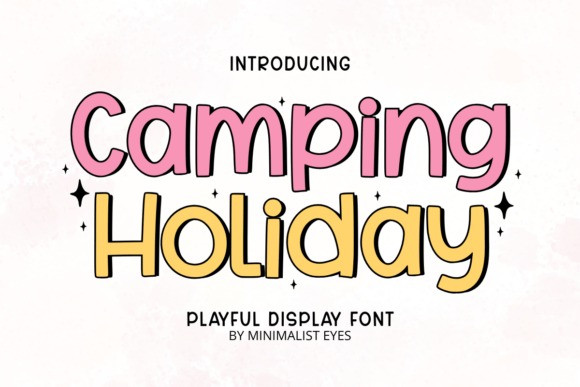
Camping Holiday Font
Camping Holiday Font a vibrant Playful Display Font that is full of adventure and cheer. Its dual-layered structure—featuring a colored fill and a bold black outline—makes it pop off the page, perfect for eye-catching titles.
The rounded, slightly quirky letterforms are ideal for travel blogs, children’s activities, summer camp branding, nature-themed merchandise, and any creative project centered on exploration and fun.
This font brings a festive, enthusiastic energy that immediately conveys a sense of adventure and lighthearted joy.